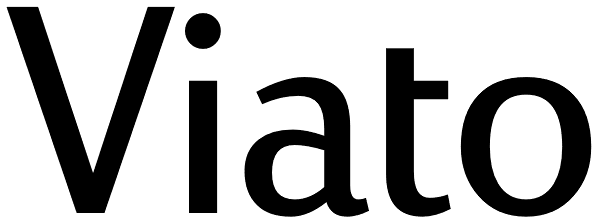
Viato
Functionality is the key factor when choosing a typeface for corporate use, and the Viato font family delivers functionality on several fronts. It has exceptional legibility at text sizes but is recognizable and distinctive when used big and bold...